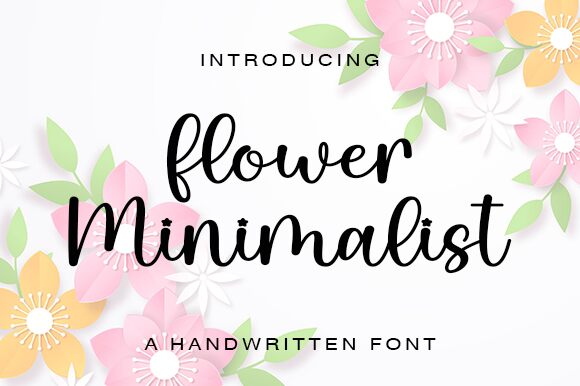
Flower Minimalist
Flower Minimalist, a creation from the talented Wahyu Studio, is a handwritten font that exudes charm and simplicity. This typeface captivates with its elegant flow and delicate structure, reminiscent of fine penmanship. The gentle curves and subtle contrast in stroke weight lend it an organic, personal touch that stands out in both digital and print mediums.
The aesthetic appeal of Flower Minimalist lies in its clean lines married with a touch of whimsy, making it an ideal choice for designs that require a hint of warmth and intimacy. From wedding invitations to branding materials, this font holds the potential to add a bespoke character to various creative projects.
With its unique blend of casual elegance and modern minimalism, Flower Minimalist offers versatility while maintaining a consistent visual harmony. Its style is particularly well-suited for applications where a handcrafted feel is desired without compromising on readability or professionalism. Whether you're looking to enhance the visual storytelling of your project or create standout graphics, Flower Minimalist brings both personality and refinement to the table.